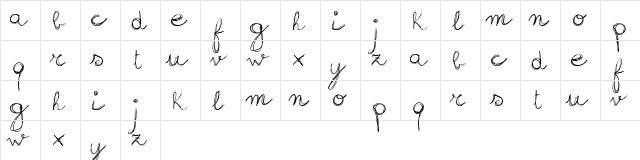
sign-handwriting_demo-version Regular
Design Context for sign-handwriting_demo-version Typeface
sign-handwriting_demo-version flows with the natural rhythm of handwritten lettering, making it ideal for designs that call for warmth and personal expression.
Font Pairing: Combine sign-handwriting_demo-version with a simple geometric sans for maximum contrast — the tension between flowing curves and clean structure is a classic typographic pairing.
Pro Tip: Use sign-handwriting_demo-version for short runs of text — names, titles, or taglines. Extended body copy in script faces tires the eye quickly.